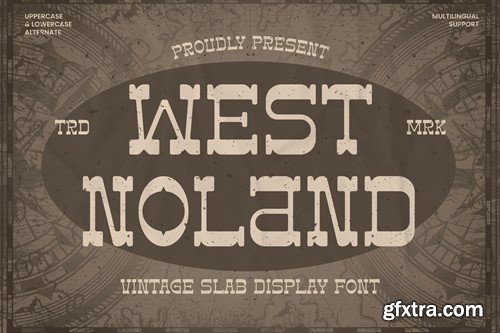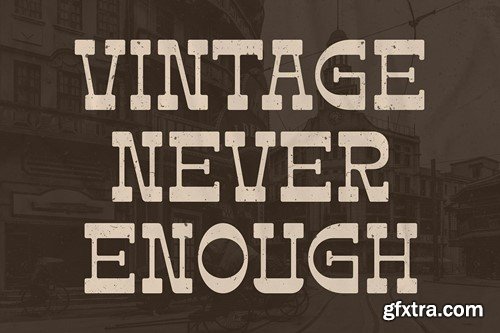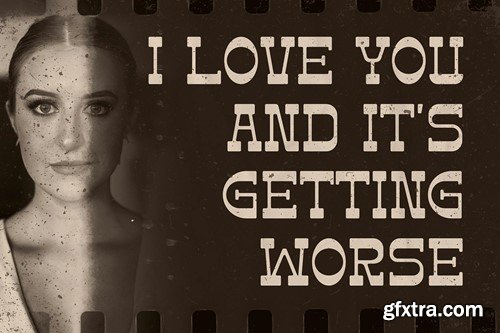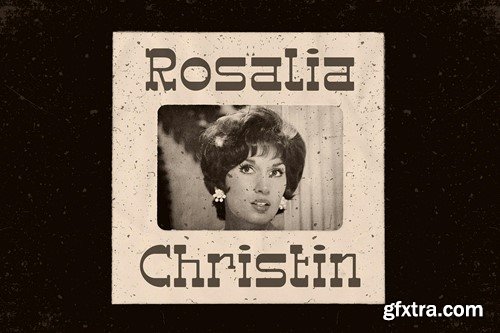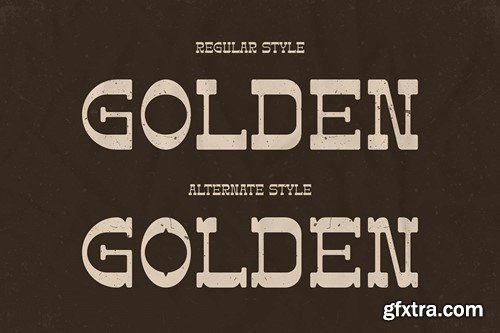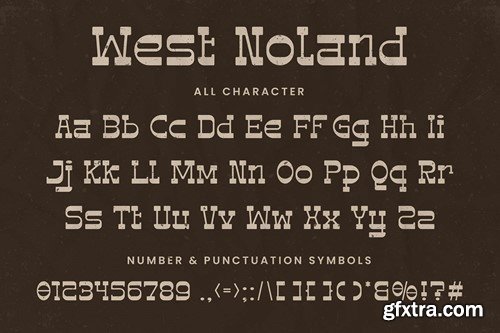
West Noland - Vintage Slab Font
West Noland - Vintage Slab Font contains a lowercase, uppercase, symbol, and also supports multi-language. There’s a lot of ligature in this font. West Noland - Vintage Slab Font also comes with ligatures, stylistic alternates, and many more. this font is suitable for fashion, branding, catalog, and other designs that you want. File Includes :